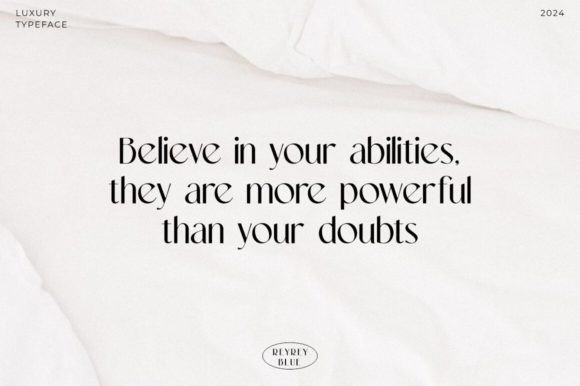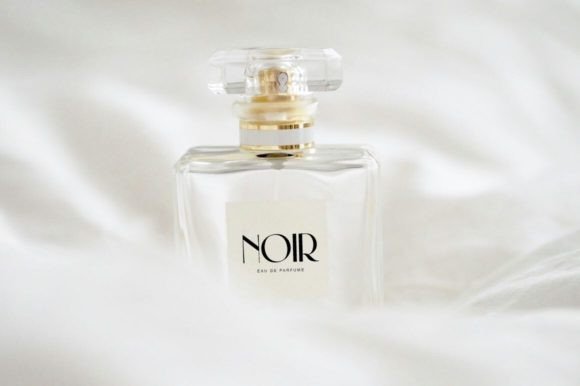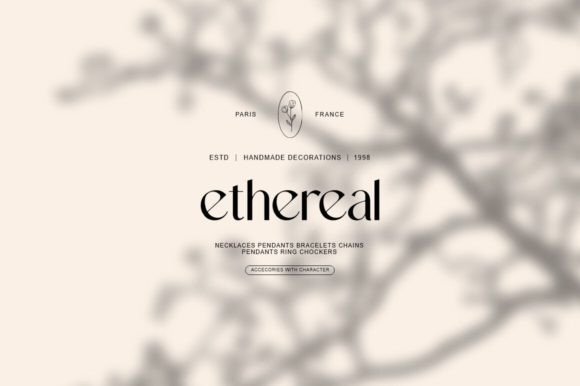
Introduction to Florie Font
Introducing Florie.
It is a beautiful sans serif font With its sleek lines and modern elegance, it can be the best solutions to make their design look more beauty and modern.
Florie Font offers exceptional quality and versatility, making it a valuable addition to your design toolkit. Whether you’re creating for personal projects or commercial use, Florie Font delivers professional results.